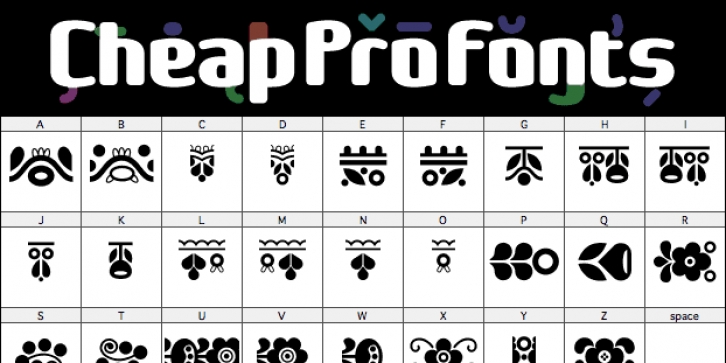
Magyar Symbols Pi is a dingbat font family. This typeface has two styles and was published by CheapProFonts.
Two fonts with traditional hungarian flower illustrations and repeatable line patterns - combine and enjoy! No “multilingual character set” as fonts from CheapProFonts usually have, but still with an international flair…
· Sarkozi Line Patterns Pi Regular
· Kalocsai Flowers Pi Regular